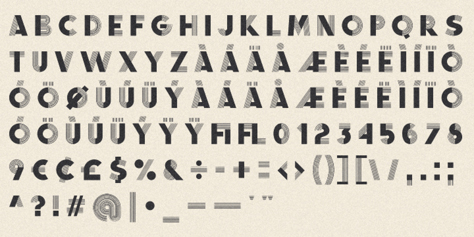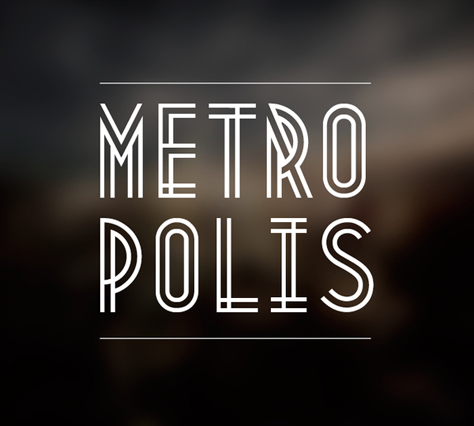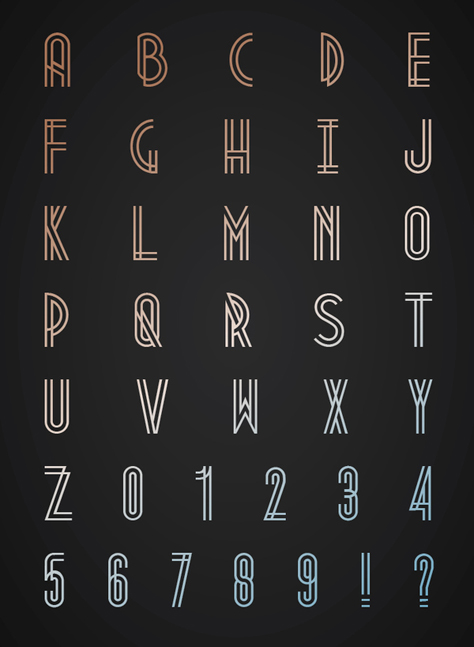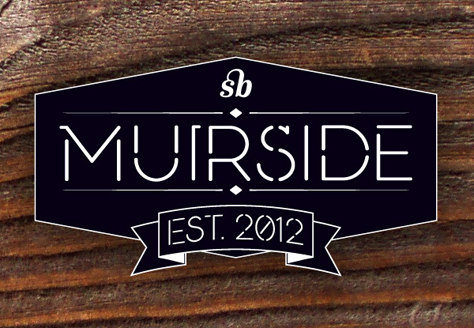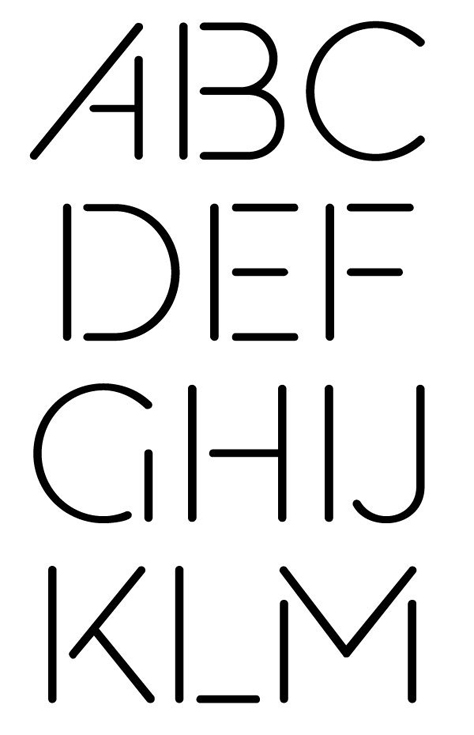
Fonts on Friday: Decorative Display Type
What better time to round up new typefaces than on Friday. Not only is "Fonts on Friday" alliterative, but showcasing new fonts also seems like a good way to end the week.
This week's roundup consists of fonts that are reminiscent of the first half of the 20th century.
Fancy Antique Display by Norwegian Morten Iveland of The Infamous Foundry is, says the designer, inspired by French decorative alphabets from the 1940’s and 1950’s." It's available from MyFonts.com for $49.
Metropolis 1920 by Josip Kelava of Melbourne, Australia, is as its name says derived from the 1920s when steel buildings reached for the sky and when Art Deco was the style. This double-lined font is, the designer says, "a bold, bumptious typeface with a stolidly calm disposition." Metropolis is free and available on the Behance Network.
Muirside as described by Scottish type designer Steven Bonner is based on "type originally drawn for a poster design inspired by bicycle frame shapes." The disjointed strokes give it the appearance of a stylish stencil. He says that it has "classic American geometric proportions. Muirside is sold through Hype for Type for $56.